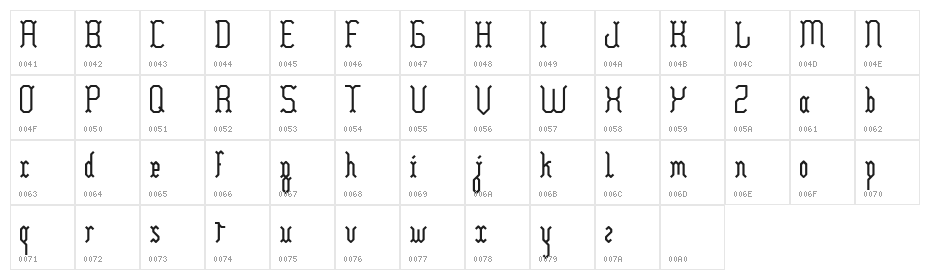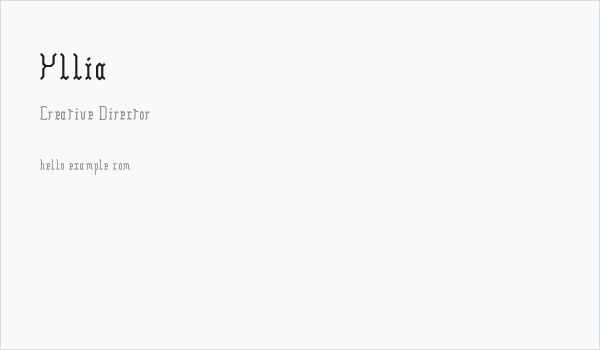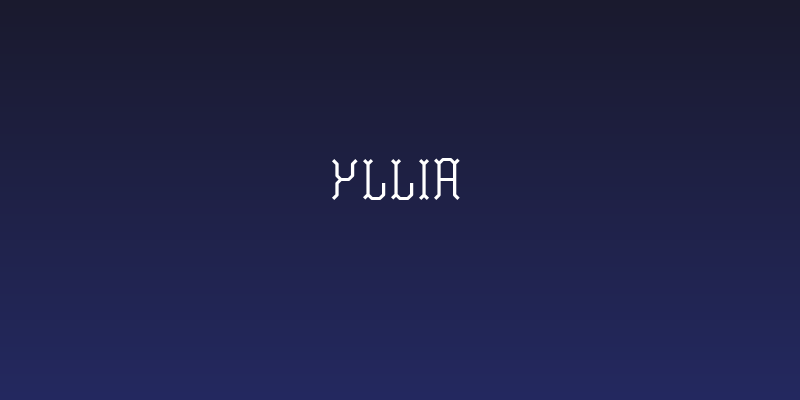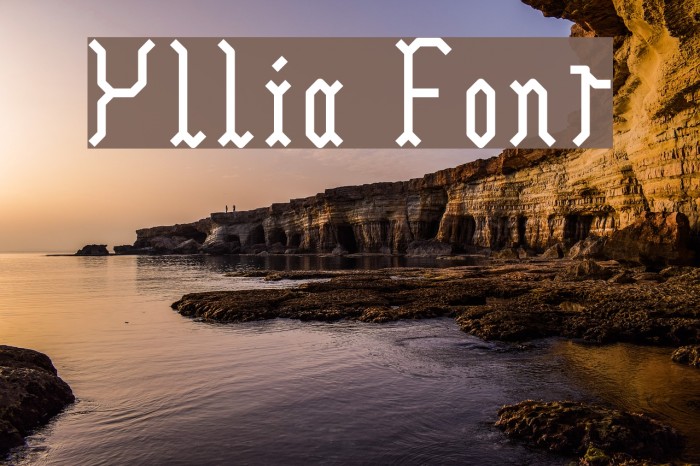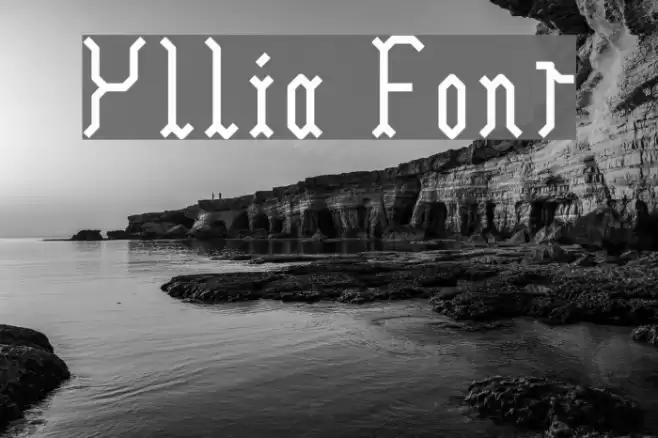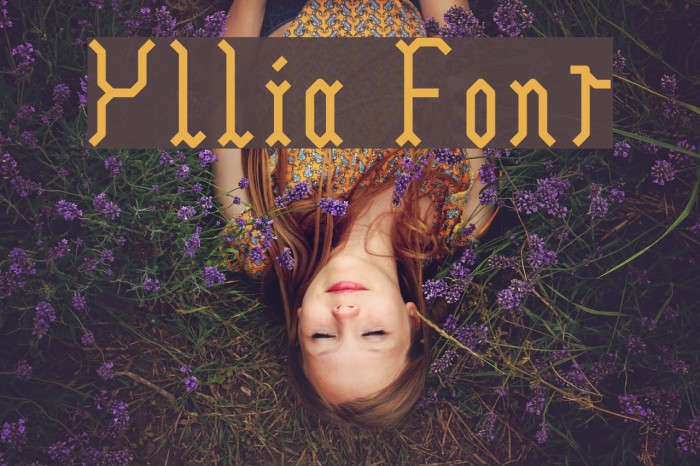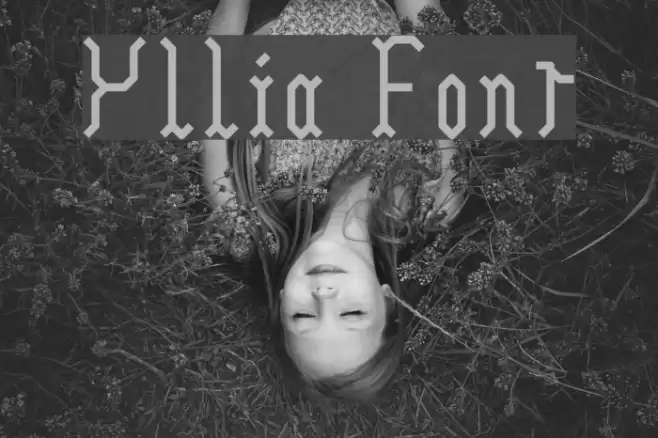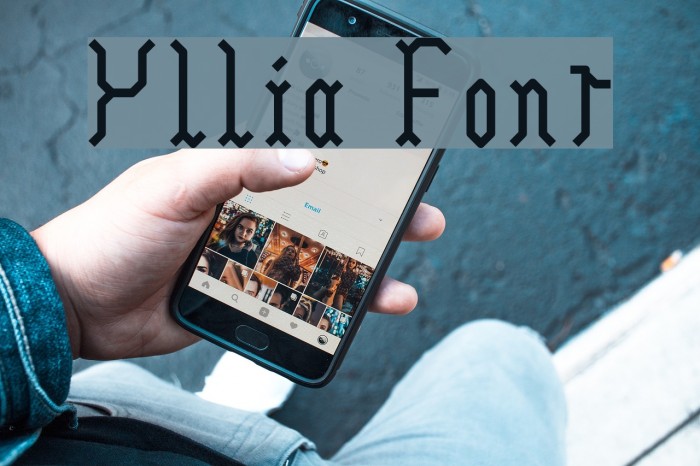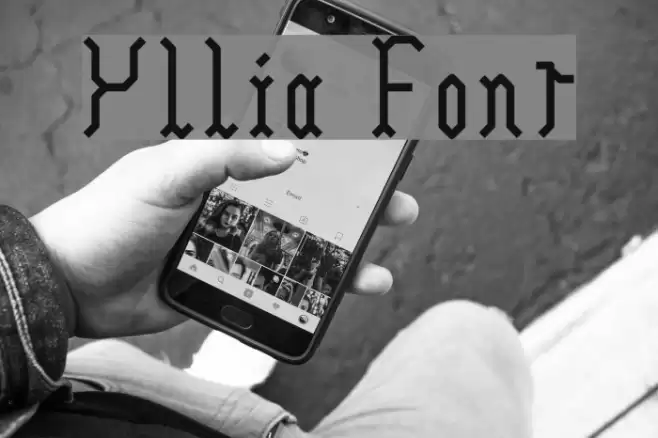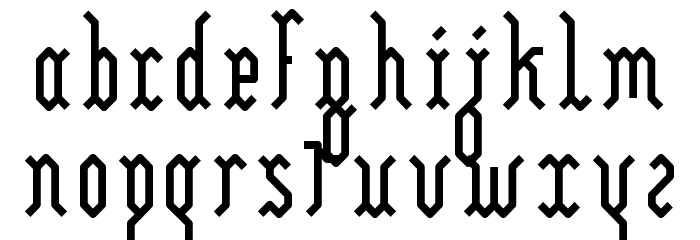
Yllia Font
✎ Gothic
| Proiecte propuse | Ideal for projects requiring a dramatic or historical aesthetic, such as book covers, posters, or themed event invitations. |